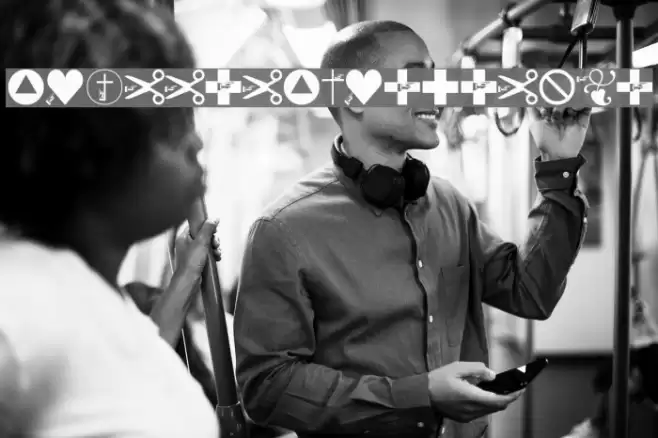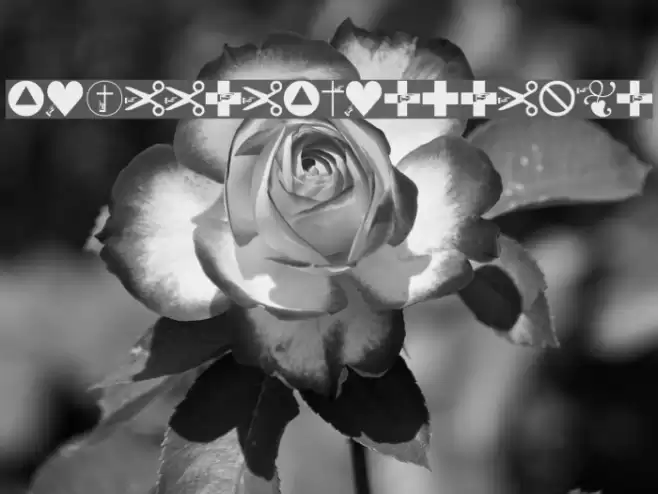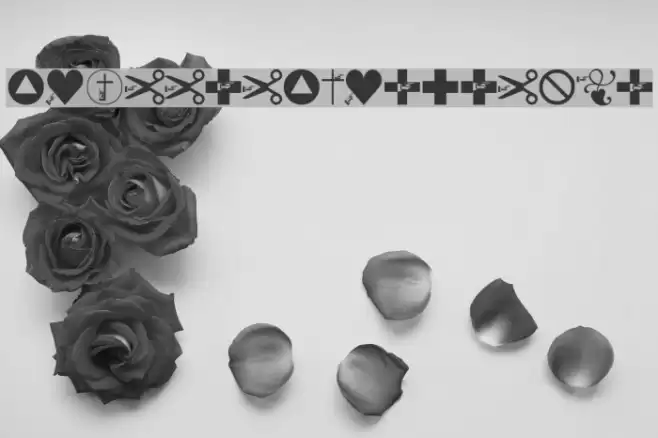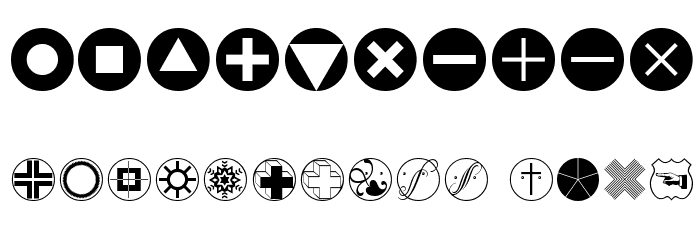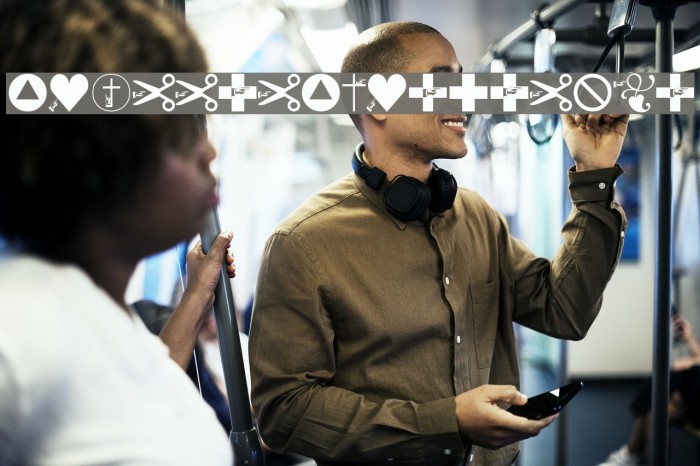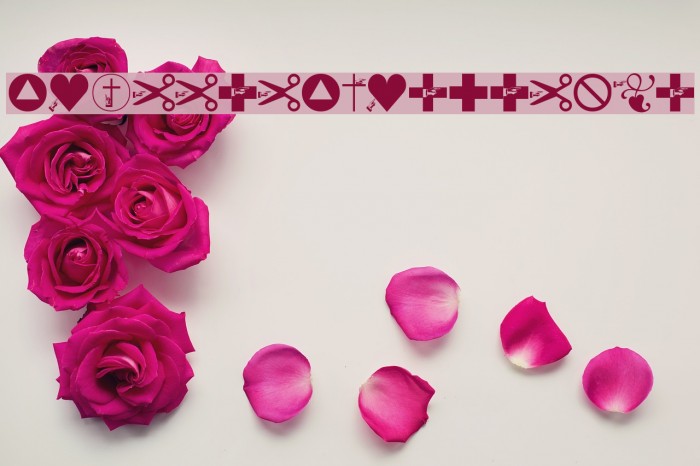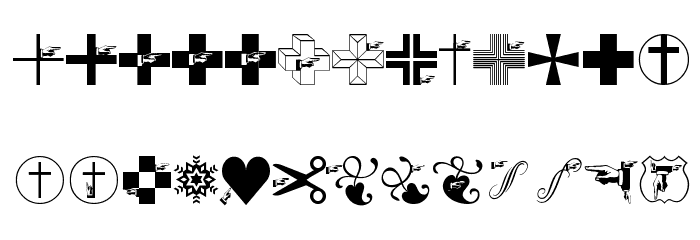
CrossesCirclesEtc Font
CrossesCirclesEtc Description
A decorative dingbat font featuring a wide variety of geometric shapes, crosses, circles, arrows, hands, hearts, scissors, and other symbols, rendered in both filled and outlined styles with high contrast and playful, eclectic design elements.
A decorative symbol font with diverse geometric and pictorial icons from Uncategorized fonts.
- Proposed Projects: Infographics, signage, educational materials, creative layouts, visual dividers, and playful branding.
- Overall Style: Decorative, Eclectic, Playful
- Use Case: Icons, visual accents, section breaks, creative projects